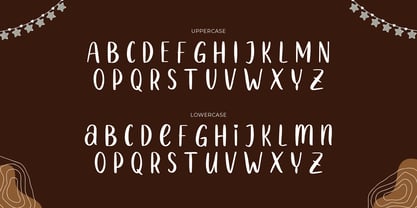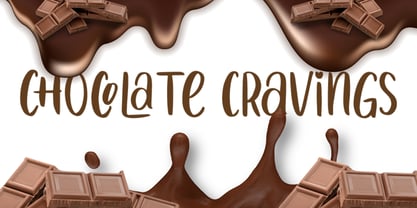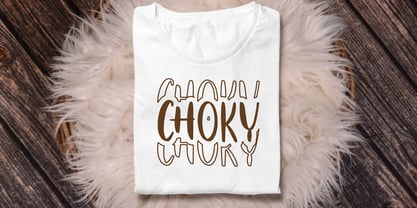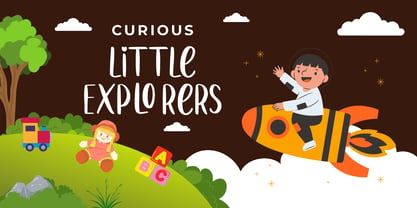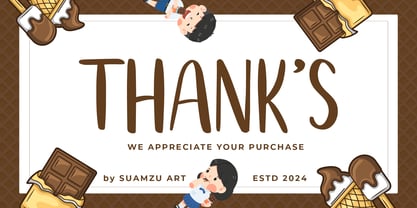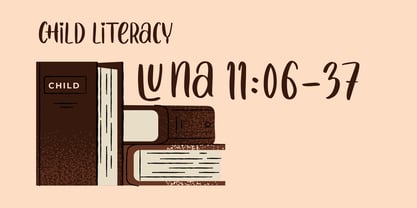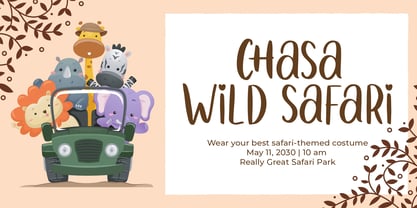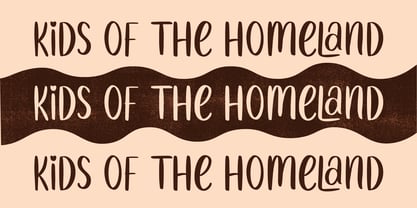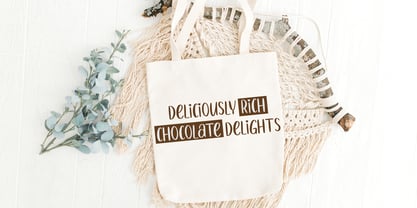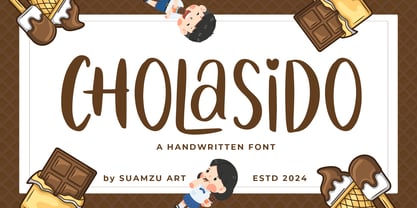
Cholasido
by Suamzu Art
The Cholasido Font Family was designed by Amrullah Medan, Amrullah and published by Suamzu Art. Cholasido contains 1 styles.
Cholasido is a character-filled font designed to bring joy and imagination into the world of children. Its unique and playful letterforms are perfect for a variety of creative projects that require a playful and colorful touch. Whatever your design needs, Cholasido provides the perfect solution, Create a friendly and fun brand identity for children's products, from toys to clothing to your logo. Grab attention with an imaginative and colorful brochure design for school events, kindergartens, or family communities for brochure design. Ideal for children's storybook covers and content, making every page more lively and attractive to little ones for printed books. Create banners for school events, birthdays, or parties with a font style that is easy to read but still fun and cheerful. Increase interactivity and visual appeal on educational websites, children's stores, or play platforms, with a font style that attracts visitors of all ages.
With Cholasido, every design project you make will radiate joy that is ready to bring smiles and happiness to the world of children.